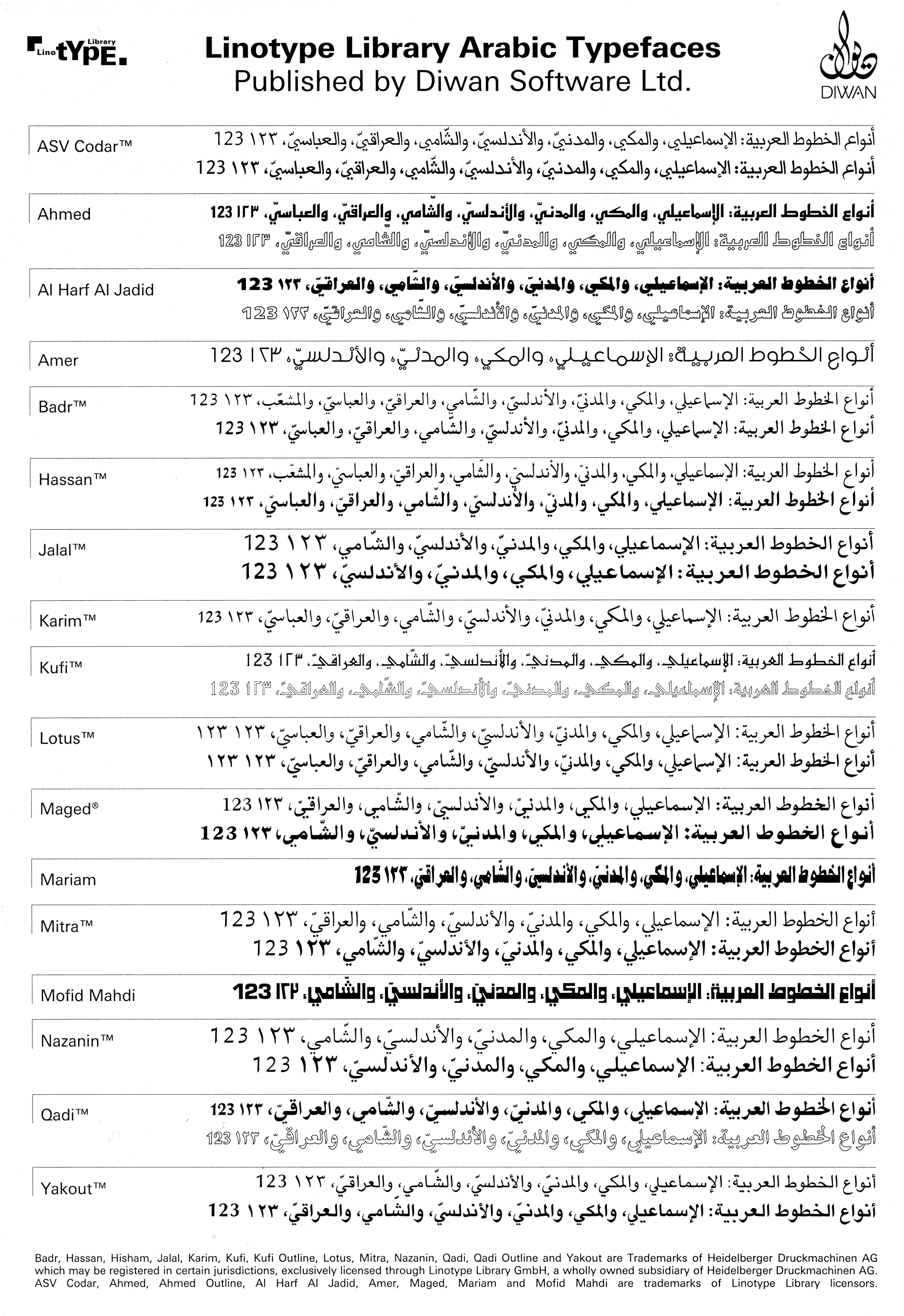
Persian/Arab Font
i got a book project that will be printed in 2 languages: english and persian.
it is a book with illustrations referring to stories and stories referring to illustrations, all written by novelists and children and drawn by illustrators and children.
and the whole book is aimed at children.
is that understandable?
all texts will be english and persian.
now i'm looking for fonts to match that concept. i thought of underwares "dolly" but have no clue what arab/persian font could fit.
do you think i should use a font that includes both, latin and arabic, or may i use two different fonts?
i really don't know where to start, all help is highly apprecitated!
There are no fonts I know of with a truly balanced Latin/Arabic pair.
To me it's because Modernism has blocked true pragmatic functionality.
And since there are far fewer Arabic fonts than Latin, I would propose
the following: choose the Arabic first*, tell us what it is, then we'll work
on a good Latin match. You might need to use a MM font to match the
color just right.
* Do note though that some styles are more culturally authentic for Arabic versus Persian.
it seems to be really a tough decision. i had a look at the offers of arabic scripts by linotype and fontshop. and it seems to me (even though i can't read one word!) that linotype shows specimens that aren't set in arabic, but only a loose collection of letters. could anybody confirm that?
perhaps lotus would be a good choice though, especially because it is opentype. what do yo think?
another possibility could be hassan
The first page of that PDF shows the basic Arabic alphabet (in the lone/independent forms), but even in the smallest size the first four letters have been truncated. The second page is messy gibberish.
Of those two, Lotus is more "literary" shall we say while Hassan is more "graphic". I would favor Hassan because I think it's more appealing to children, and because I suspect it's more appealing to Persians - but I'm not sure.
If you go with Hassan, maybe a Walbaum would work? Although that doesn't seem very kiddie...
Yikes! Where did you find that Linotype PDF, Titus? That is truly an apalling mess. I have a set of printed Arabic samples from the Linotype-Paul days, courtesy of Fiona Ross, and they show proper text samples.
you can download those samples from the linotype homepage. quite embarassing.
thanks for the insight hrant, i could imagine going with "hassan", but i can't imagine a walbaum looking good on childrens drawings!
perhaps the idea to find a latin font that is quite close to the arabic and looks harmonious on it's side is just wrong. wouldn't it be a better way to say: "two different scripts - lets point out that difference and stop artificially trying to let them look familiar." one could use something completely different - futura!
Agreed, do not follow the current showings of the Arabic on the Linotype website. I am assisting Linotype in revising these - at the moment they are just trials as the formats vary - and there should be a sensible showing in January. The second page of the pdf samples are just the Latin pages set with Arabic fonts, so they are gibberish. There will be proper textx samples in due course.
I am pretty certain that all the Linotype Arabic fonts contain Farsi characters (including numerals). The two fonts that are designed for Farsi (note the counters) are Nazanin and Mitra.
The former is particularly popular but neither are yet in OpenType format - you would need to contact Thomas Caldwell at Lintoype for a date, also about Hassan if you follow Hrant's suggestion.
Lotus is Linotype's most popular text font for quality bookwork. Yakout is the most popular font for newspaper text and brochures. Both contain the necessary characters and are available in OpenType format (even though the website currently only shows the Type 1 Yakout). The samples John mentions would give you better information. I don't think I have a set that I can send you, but perhaps John would kindly put up a pdf for you of the fonts in which you are interested. Please contact me off-list if you would like further information, although now is a somewhat busy time!
Titus, the degree to which Latin and Arabic can be "formally" reconciled is indeed severely limited - and when people ignore this they end up with caricatures of visible language which can appeal only to fanatical graphic designers or cultural chauvinists. But whenever the two are in one place they can't just ignore each other either. They have to balance each other somehow or other, and one generally important factor is apparent importance - when one has too much and the other too little you'll piss half the people off - much easier to do than pleasing half the people! :-/
I am a latecomer to this conversation, but I have read through, and am fascinated with various resources and collections we are being presented.
Just to be clear: Am I correct to conclude, that an essential part of what you are trying to accomplish is to "visually" balance the texture and formal aspects of a Persian/Arabic font together with another Latin font, in a composition that would involve children's illustrations?